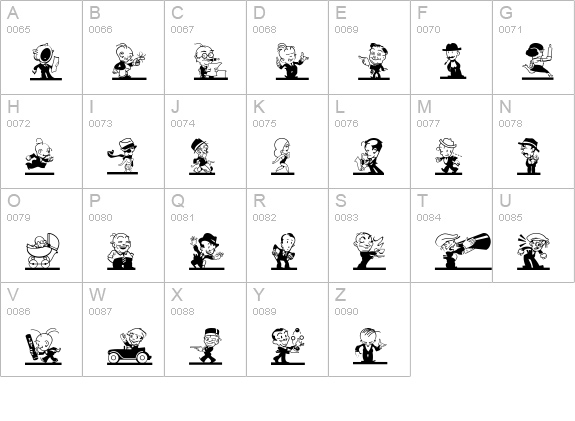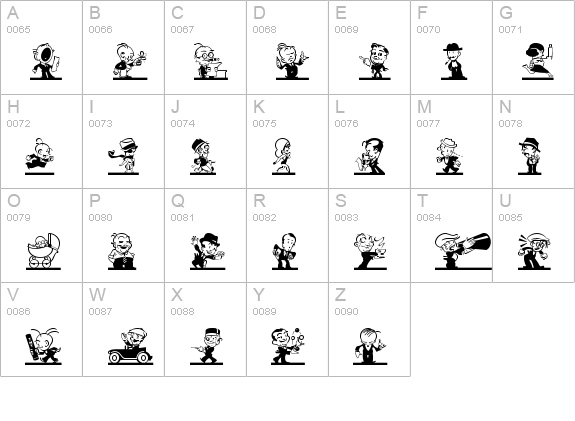
KartoonKutz2 Font Details
Introducing KartoonKutz2, a fun and playful font that will bring a touch of whimsy to any project. This font is perfect for adding a touch of creativity to children's books, greeting cards, logos, and more. With its charming and quirky letterforms, KartoonKutz2 captures the essence of childhood imagination and brings a smile to anyone who lays eyes on it. But what sets KartoonKutz2 apart from other fonts is that it is not only delightful, but it is also free! Yes, you read that right - this incredible font is freely available to download at FontsMarket.com. Now you can add a dash of joy to your designs without breaking the bank. Whether you're a professional designer looking to add a playful element to your work or a hobbyist wanting to create fun and memorable projects, KartoonKutz2 is the font for you. Its versatility allows it to be used in a wide range of applications, from posters and invitations to websites and social media graphics. The playful and whimsical nature of KartoonKutz2 makes it particularly well-suited for children's projects. It can bring storybooks to life, make learning materials more engaging, and add a touch of magic to any design that targets young audiences. So why wait? Download KartoonKutz2 now from FontsMarket.com and let your imagination run wild. This font will undoubtedly become your go-to choice whenever you want to inject a dose of fun and creativity into your designs. Get ready to captivate your audience and create designs that leave a lasting impression.